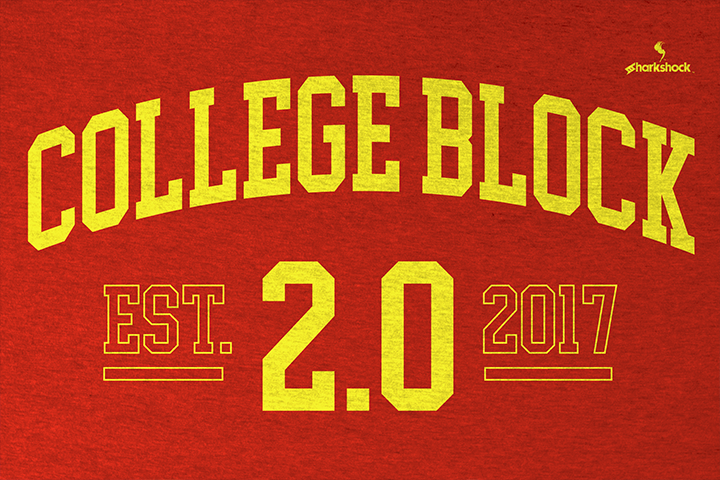
Introduction to College Block 2.0 Font
College Block has been revamped and joins the 2.
0 class The letters are about 30% taller, just waiting to be arched and thrown on a University sweater.